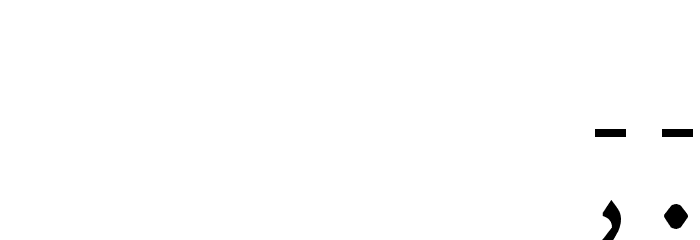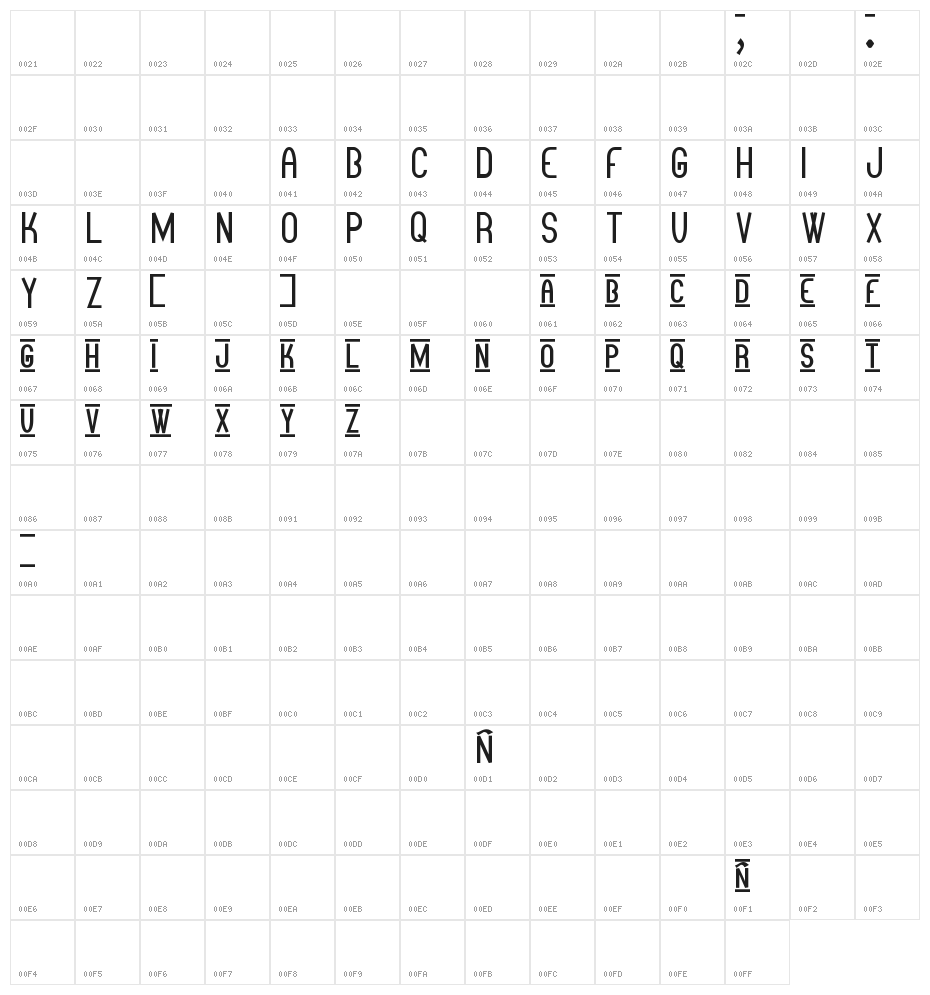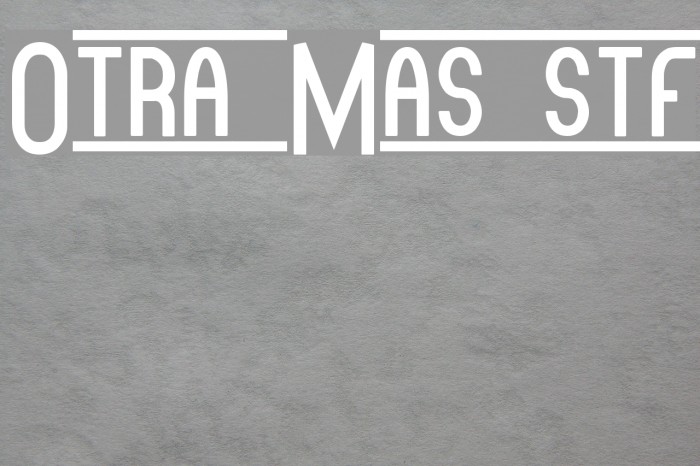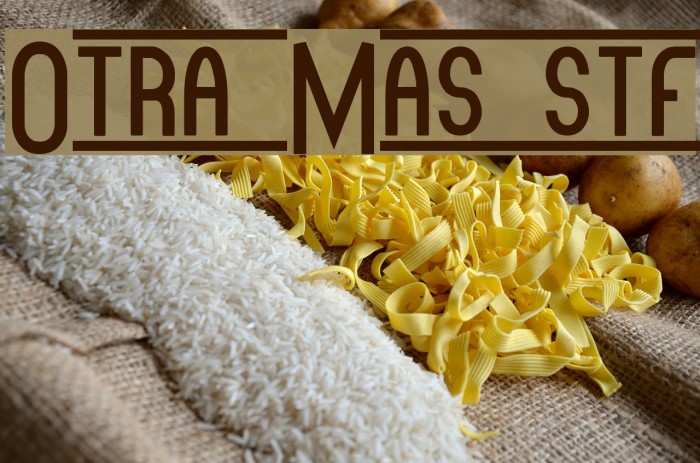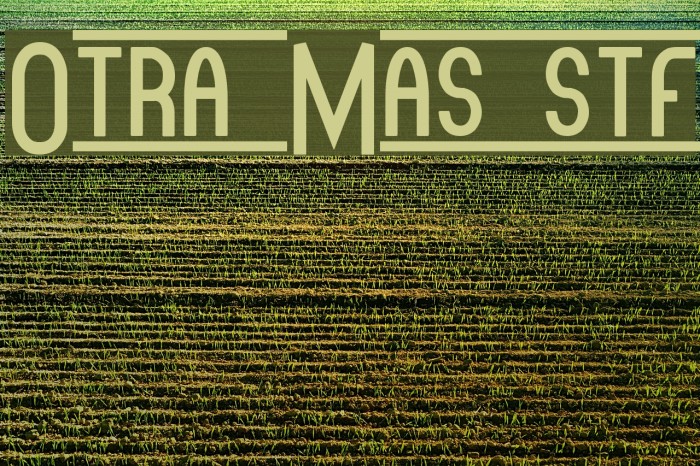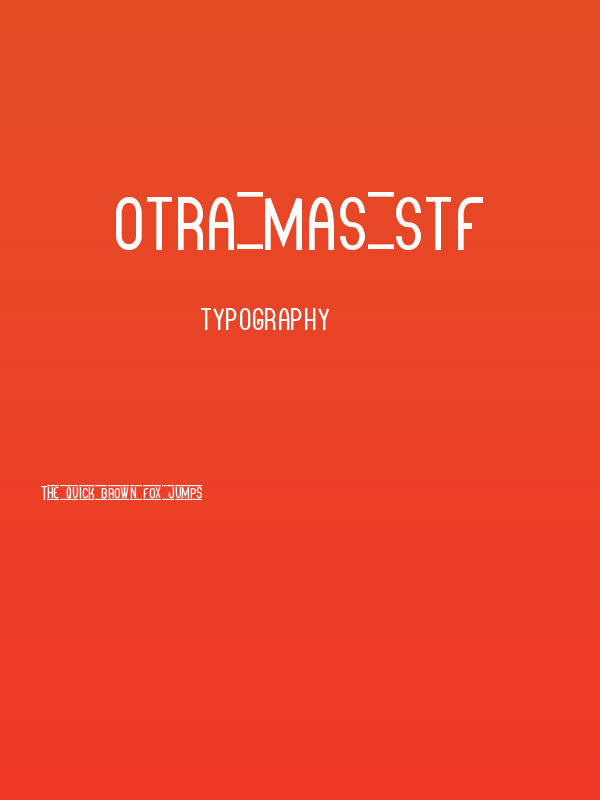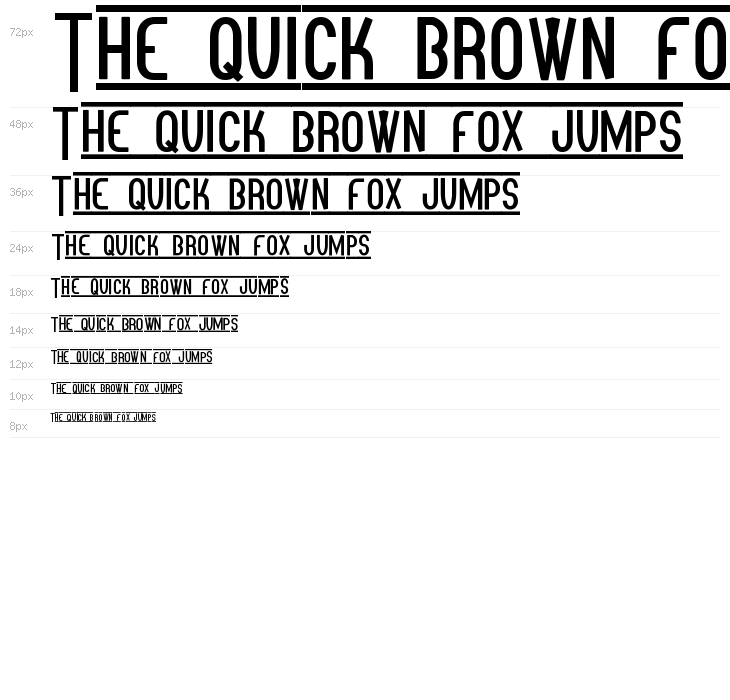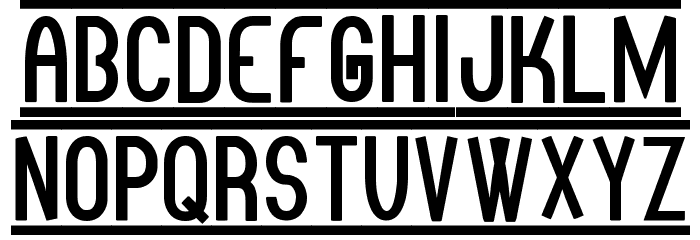
Otra Mas stf Font
Otra Mas stf Description
This font features a bold and modern design with clean, geometric lines and a strong presence. The uppercase letters are uniform in height, with a consistent stroke width that gives the font a cohesive look. The characters have a slightly condensed appearance, which enhances their boldness and makes them stand out. The font's design is straightforward, with minimal decorative elements, focusing on clarity and readability. The spacing between characters is tight, contributing to its compact and impactful style. This font is ideal for creating attention-grabbing headlines or titles, where a strong visual impact is desired.
| Proposed Projects | Ideal for headlines, posters, branding, and advertising materials. |